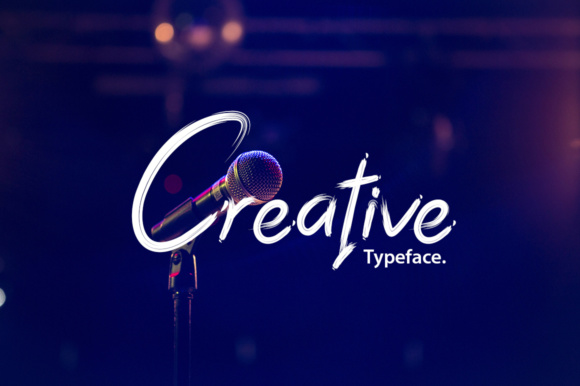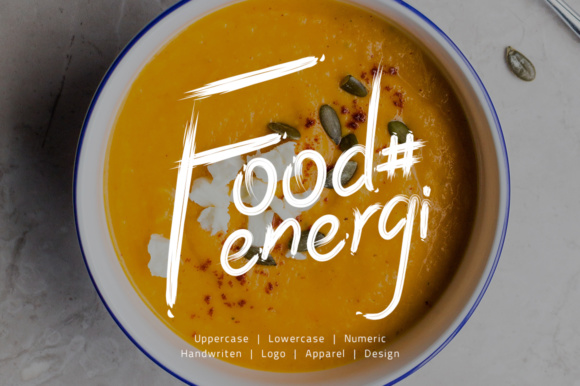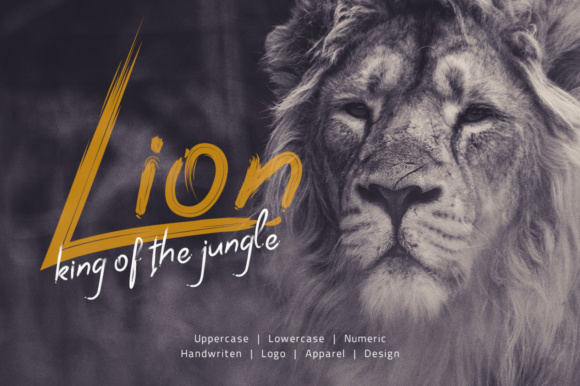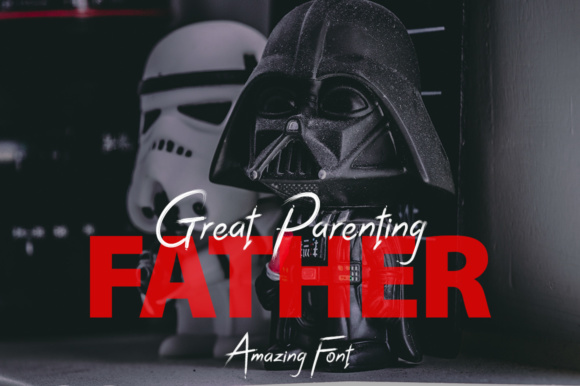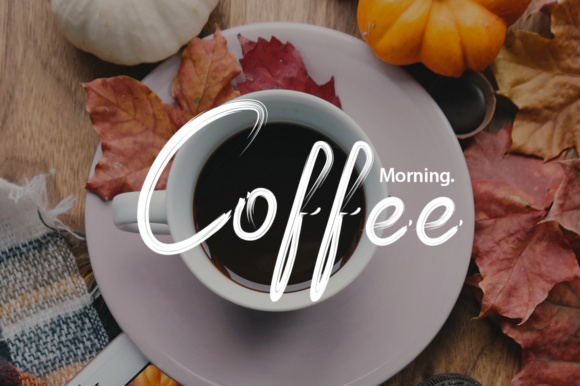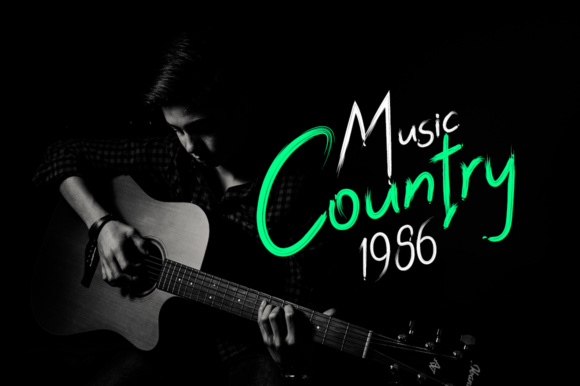
The Dark Script Font: A Designer’s Delight
I’ll never forget the time I was working on a wedding invitation project, and my client asked for a font that was both elegant and unique. I scoured the internet, tried out countless fonts, but nothing seemed quite right. That was until I stumbled upon the Dark Script font. Its stylish calligraphy and classic feel immediately caught my eye, and I knew I had found the perfect fit. In this article, I’ll share my love for the Dark Script font, its features, and how to make the most of it in your designs.
A Personal Review: What I Love About Dark Script
The Dark Script font has quickly become one of my go-to fonts for a variety of projects. Here are some things I love about it:
- ✨ Elegant and sophisticated feel: The Dark Script font has a classic, timeless look that’s perfect for wedding invitations, logos, and other high-end designs.
- ✅ Versatile: This font can be used for a wide range of projects, from headings and titles to signatures and labels.
- 💫 Unique character: The varying baseline and flowing script make each letter unique and visually interesting.
While the Dark Script font is amazing, there are a few things to keep in mind:
- ⚠️ Limited use for body text: Due to its script nature, the Dark Script font can be difficult to read in large blocks of text.
- 🤔 May not be suitable for very small sizes: The font’s intricate details can get lost at very small sizes, making it harder to read.
- Experiment with the font’s OpenType features, such as stylistic alternates and glyphs, to add more personality to your design.
- Choose the Dark Script font and explore the OpenType features, such as ligatures and stylistic sets.
The Story Behind Dark Script
The Dark Script font was created by a talented designer who wanted to bring a touch of elegance and sophistication to the world of typography. Inspired by traditional calligraphy, the designer crafted a font that would be both beautiful and versatile. And so, the Dark Script font was born.
| Is Dark Script suitable for body text? | While Dark Script is beautiful, it’s not ideal for large blocks of body text. It’s best used for headings, titles, and other display text. |